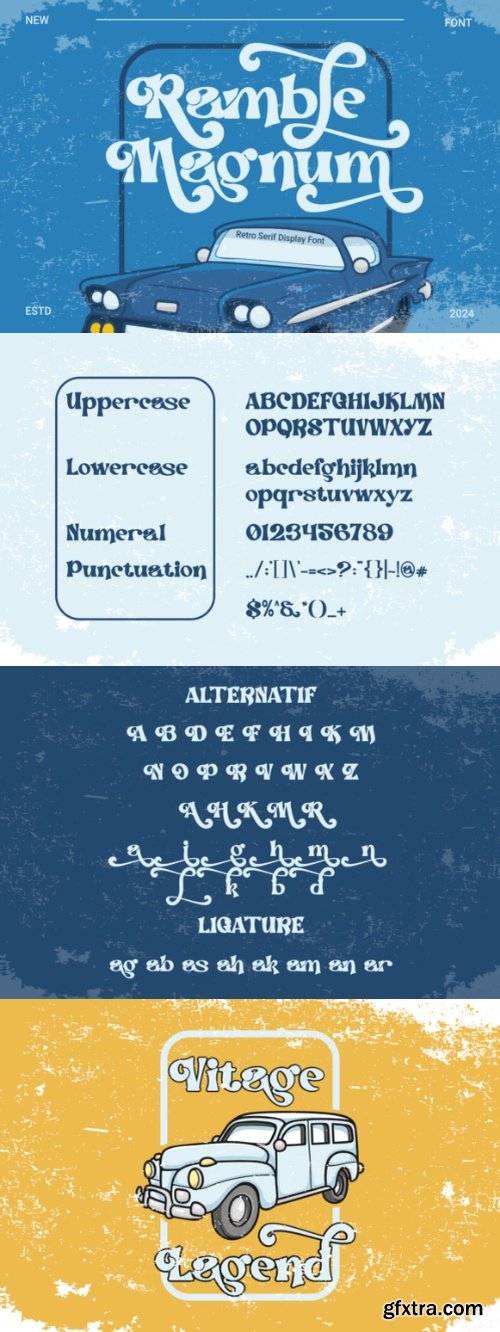
Ramble Magnum Font
- Channeling pure retro flair, Ramble Magnum is a bold serif display font with exaggerated swashes and vintage curves that scream personality. Inspired by 70s car culture and classic Americana, this font is perfect for retro posters, T-shirt designs, album covers, and nostalgic branding. Its dramatic ligatures and sweeping strokes bring bold character and groovy energy to any layout.